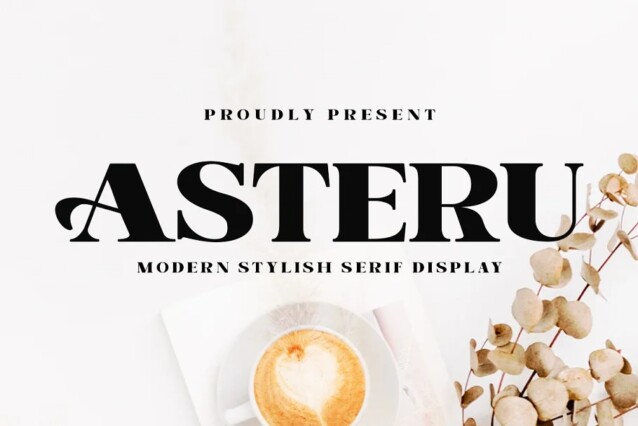
Asteru Font
Asteru Font is a contemporary serif typeface, special designed for printing and advertising. Inspired by the bold, natural look of serifs so beautiful for today’s fashion. Including uppercase letters, numbers, and various kinds of punctuation Asteru is perfect for invitations, logos & branding, photography, advertising, watermarks, social media posts, product packaging, product designs, labels, wedding designs, stationery, special events or anything else needed to create a theme.